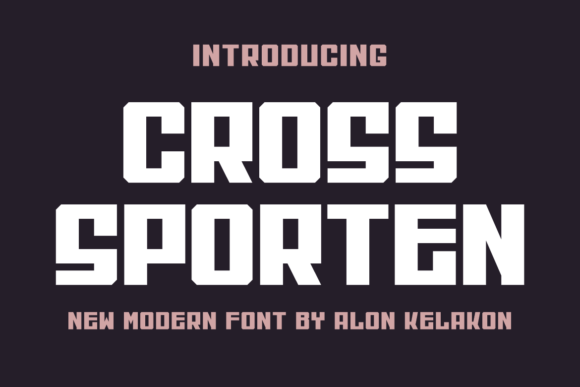
Unlock Your Creative Potential with Cross Sporten Font
Remember that moment when a brilliant idea strikes, and you can’t wait to bring it to life? The rush of excitement, the spark of creativity, and the thrill of watching your vision take shape – it’s a feeling like no other. For designers, this moment is what drives us to push the boundaries of innovation and bring our ideas to the world.
Enter Cross Sporten Font, a bold and masculine sans display font designed to elevate your creative endeavors to new heights. This masterfully crafted font is not just a tool, but a partner in bringing your ideas to life. Its versatility and style make it an invaluable asset for designers looking to add a touch of sophistication and edge to their work.
With Cross Sporten Font, you’ll be able to unleash your full creative potential and take your designs to the next level. Whether you’re working on a logo, a typography project, or a larger-scale design initiative, this font is sure to become a true favorite – and a valuable addition to your design arsenal.
Cross Sporten Font Key Features
- Font Family: Cross Sporten Font is a unique, multi-purpose font designed for various sports and fitness applications.
- Character Count: The font contains a large character set, including uppercase and lowercase letters, numbers, punctuation, and various symbols.
- Size and Resolution: The font is designed to be highly legible at various sizes and resolutions, making it suitable for digital and print applications.
- Unique Characteristics: The font features a bold, dynamic design with a mix of rounded and angular elements, giving it a distinctive and modern look.
- Style Variations: Cross Sporten Font includes several style variations, including regular, bold, italic, and bold italic, to cater to different design needs.
Designer Review: Cross Sporten Font
Overall, the Cross Sporten Font is a solid, if unremarkable addition to any designer’s toolkit. ✨ It’s clean, easy to read, and has a nice balance of modernity and classic feel. The font’s versatility makes it suitable for a wide range of projects, from sports branding to corporate identities.
- ✨ Legibility: The font is extremely easy to read, even at small sizes.
- ✨ Versatility: Cross Sporten can be used for a variety of projects, from sports to corporate.
- ✨ Classic feel: The font has a timeless quality that will age well.
- ⚠️ Lack of distinctiveness: The font doesn’t have a particularly unique or memorable character.
- ⚠️ Limited expressiveness: Cross Sporten is a relatively straightforward font that doesn’t lend itself well to creative experimentation.
- ⚠️ Not ideal for body text: While the font is great for headings, it’s not the most comfortable choice for large blocks of body text.
Overall, the Cross Sporten Font is a reliable, if unexciting choice for designers. It’s not going to blow anyone away with its creativity or originality, but it will get the job done.
For best results, use the Cross Sporten Font in bold or italic styles to add emphasis to your text.
The Cross Sporten Font is ideal for sports-themed designs, such as:
- Sports team logos
- Event invitations
- Branding materials
Alternatives to Cross Sporten Font for Designers
Open Sans is a popular sans-serif font that is highly legible and versatile. It is suitable for body text, headings, and titles, making it a great alternative to Cross Sporten Font. Open Sans is more geometric and clean compared to Cross Sporten Font, which has a more rounded and playful feel. Use Open Sans when you need a professional and modern look.
Lato is a sans-serif font that is elegant and sophisticated. It is designed to be highly legible and has a wide range of weights and styles. Lato is more minimalist and refined compared to Cross Sporten Font, which has a more bold and energetic feel. Use Lato when you need a clean and modern design that conveys a sense of sophistication.
Monterserrat is a sans-serif font that is inspired by the urban environment of Buenos Aires. It is highly legible and has a wide range of weights and styles. Montserrat is more geometric and urban compared to Cross Sporten Font, which has a more rounded and playful feel. Use Montserrat when you need a font that evokes the energy and vibrancy of a city.